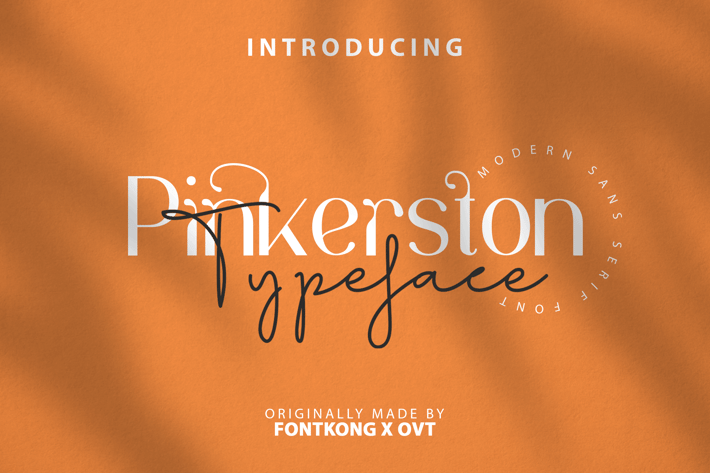
Pinkerston - Modern Sans Serif Font
Introducing "Pinkerston," a modern sans serif font that embodies elegance and simplicity for all your contemporary design needs. Meticulously crafted, Pinkerston offers clean lines, smooth curves, and a minimalist aesthetic, making it perfect for a wide range of applications from branding to editorial design.
Pinkerston’s versatility shines through its robust character set, which includes multiple weights, italics, numerals, punctuation, and extensive language support. Whether you are designing a logo, crafting a professional presentation, or creating an inviting website, Pinkerston delivers a polished and refined look.
Pinkerston is your go-to font for adding a touch of modern elegance to any project.